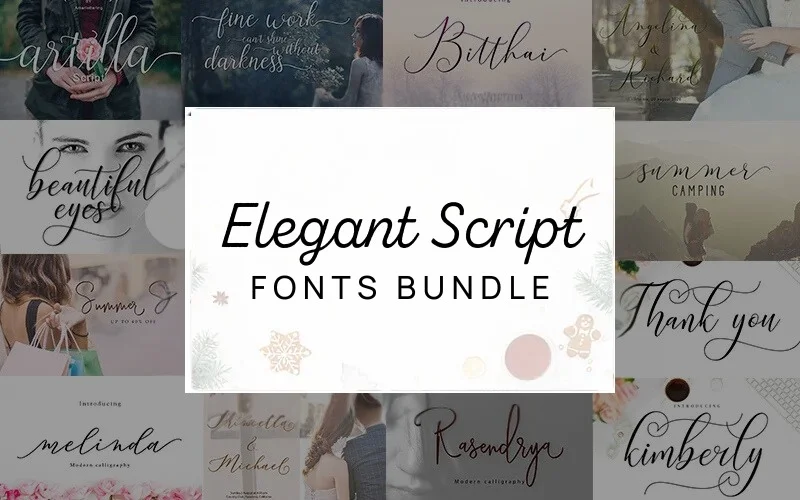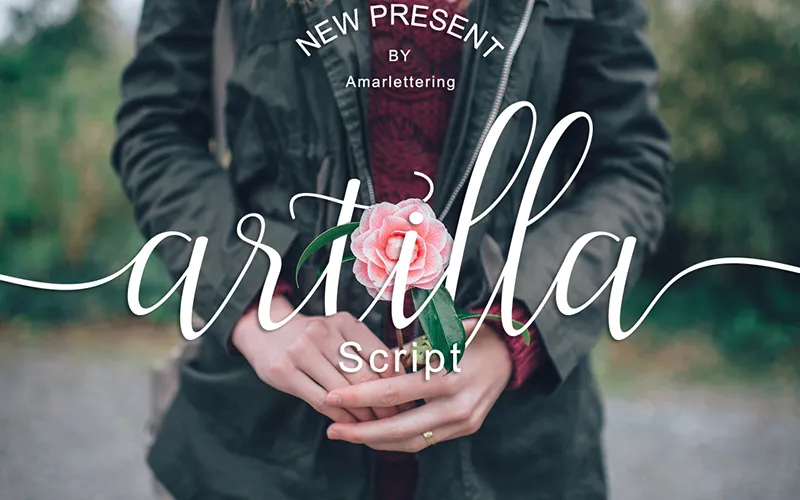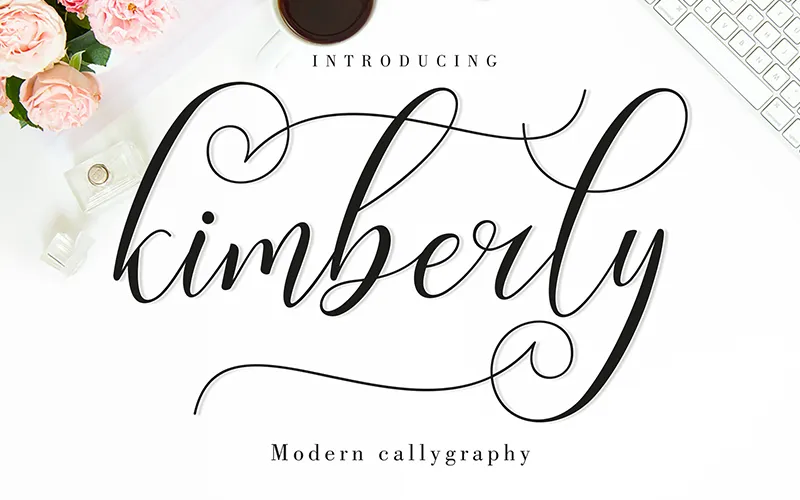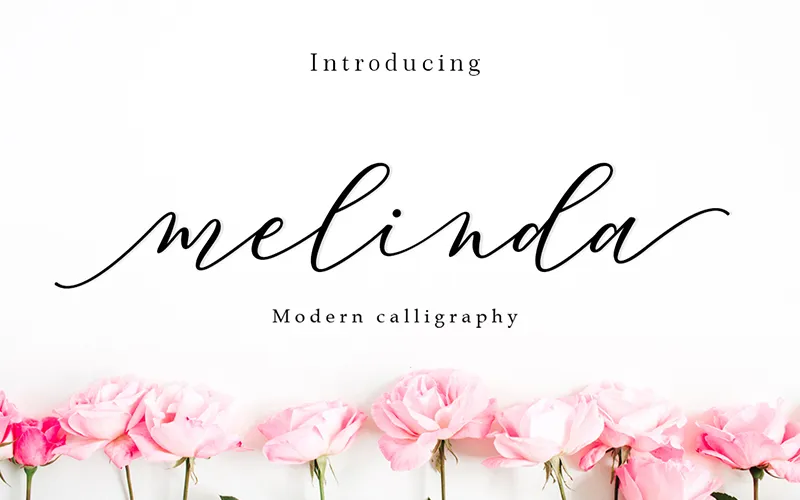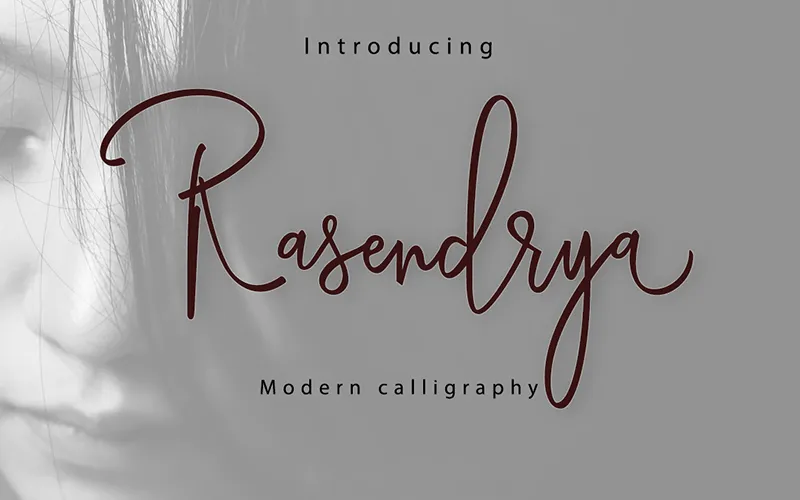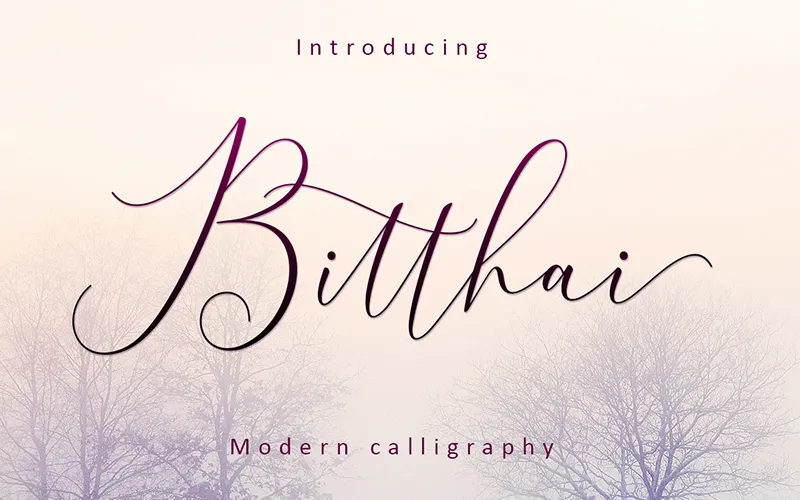
Add a touch of refinement to your designs and bring them to life with the fonts included in the –
Elegant Script Fonts Bundle
These fonts are designed to transform ordinary projects into extraordinary artwork.
Whether a professional designer or a newbie, these fonts are your go-to solution for creating visually striking designs.
This Elegant Script Fonts Bundle Includes:
- Artilla Script Font
- Bitthai Font
- Kimberly Script Font
- Melinda Font
- Rasendrya Italic Font
- Rasendrya SANS Font
- Rasendrya Regular Font
- 7 Elegant Script Fonts
- Includes alternates
Here's a preview of the Elegant Script Fonts: